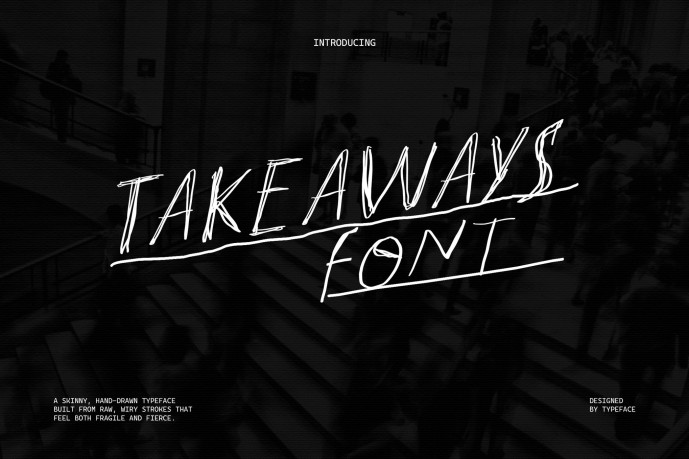
Takeaways Handwritten Font
Designer: typeparties
Takeaways Handwritten Font that exudes an untamed, almost anarchic energy. Its sharp, uneven strokes mimic the urgency of quick graffiti tags or frantic sketchbook notes, giving it a visceral and unpolished edge.
From a typographic perspective, this font embodies gestural expressiveness, characterized by dynamic line variation and irregular letterforms that reject the precision of geometric sans-serifs or traditional serifs. Instead, it thrives on visual chaos—the slightly distorted anatomy of the characters communicates motion, tension, and rebellion.